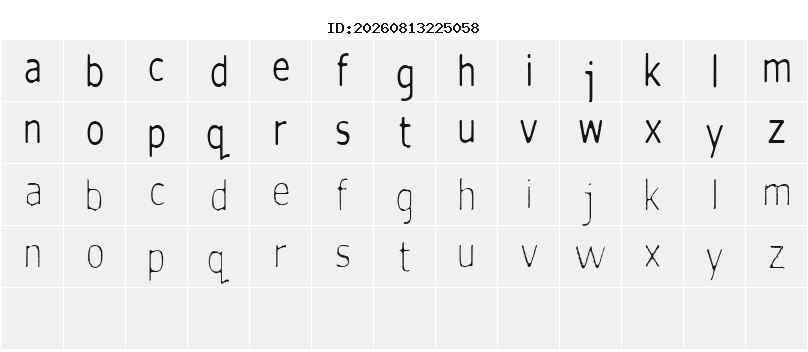
• Designer: SpideRaY
About silent witness.ttf
silent witness.ttf is a modern, elegant sans-serif font designed for ultimate readability and visual harmony. Perfect for branding, headlines, web design, and print materials.